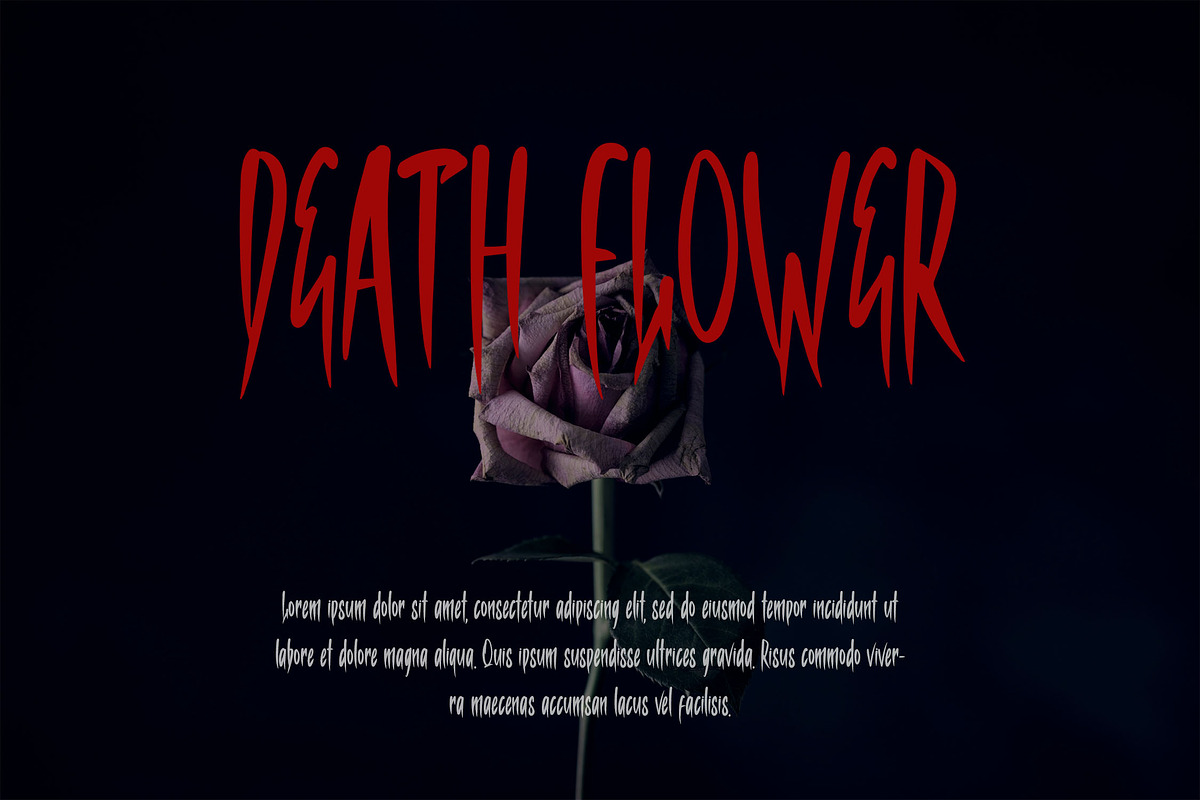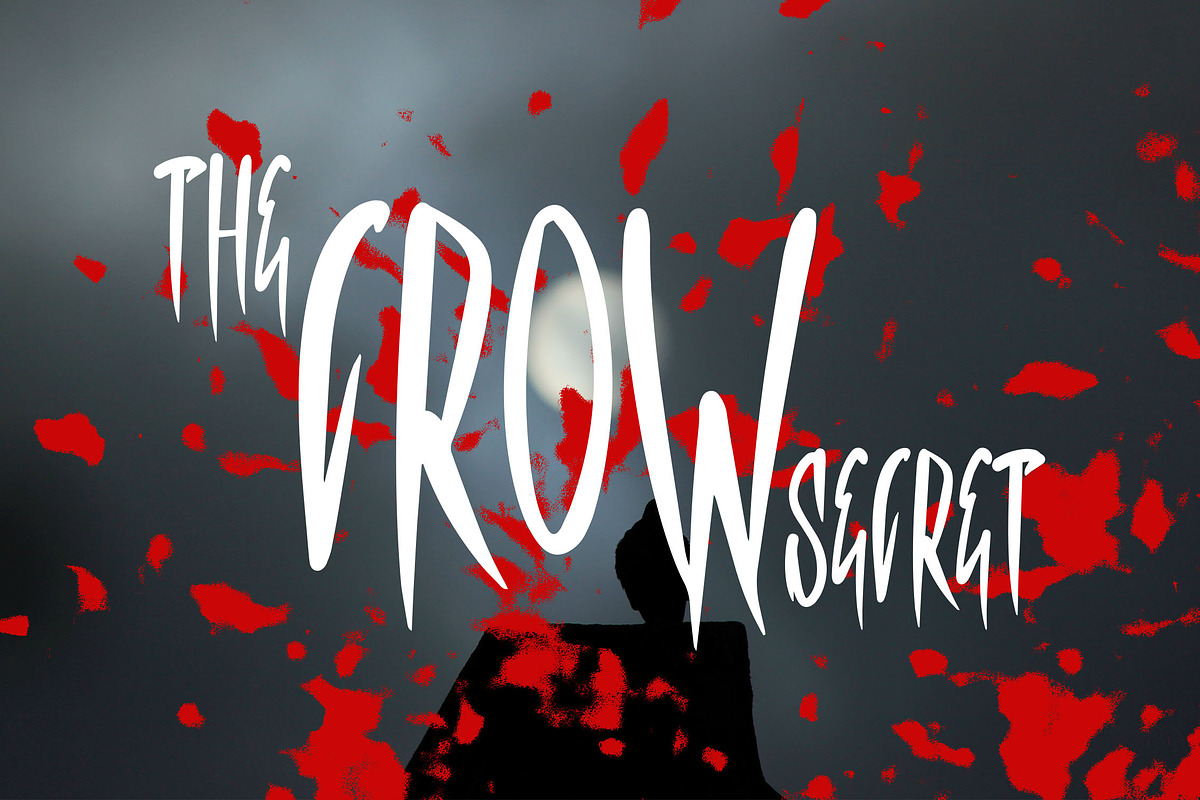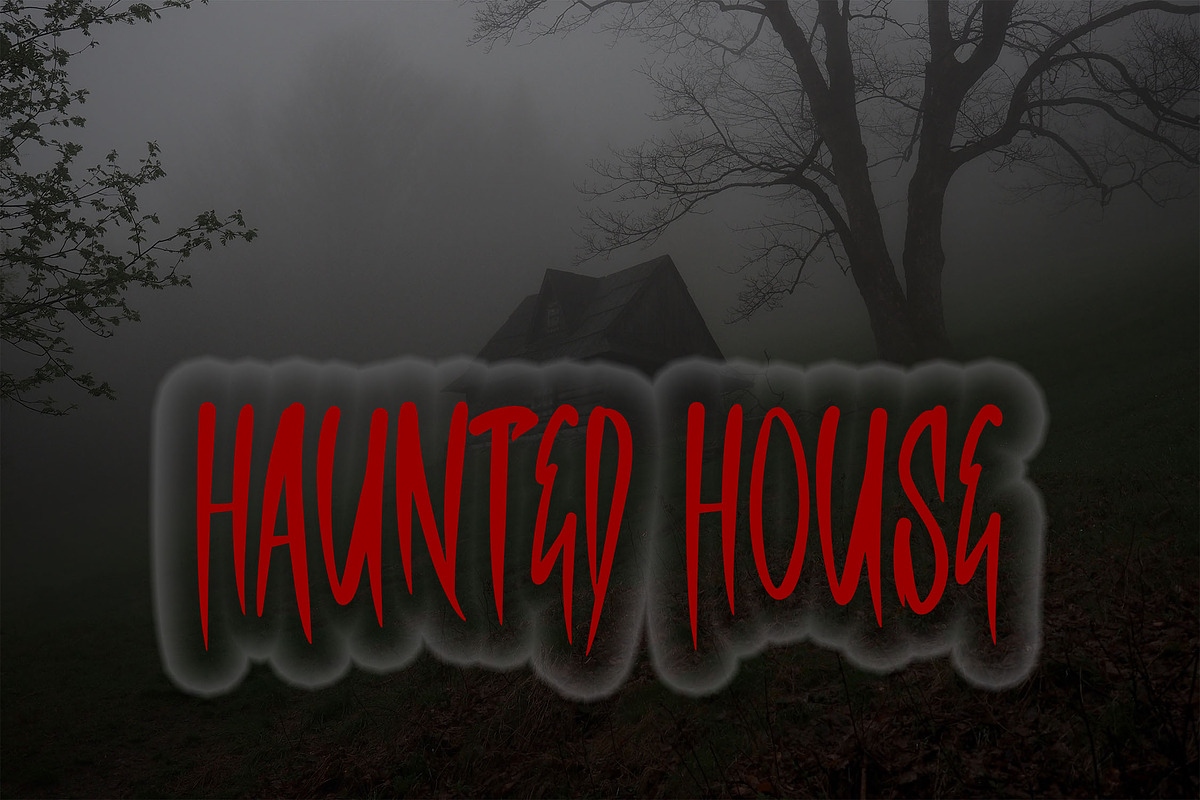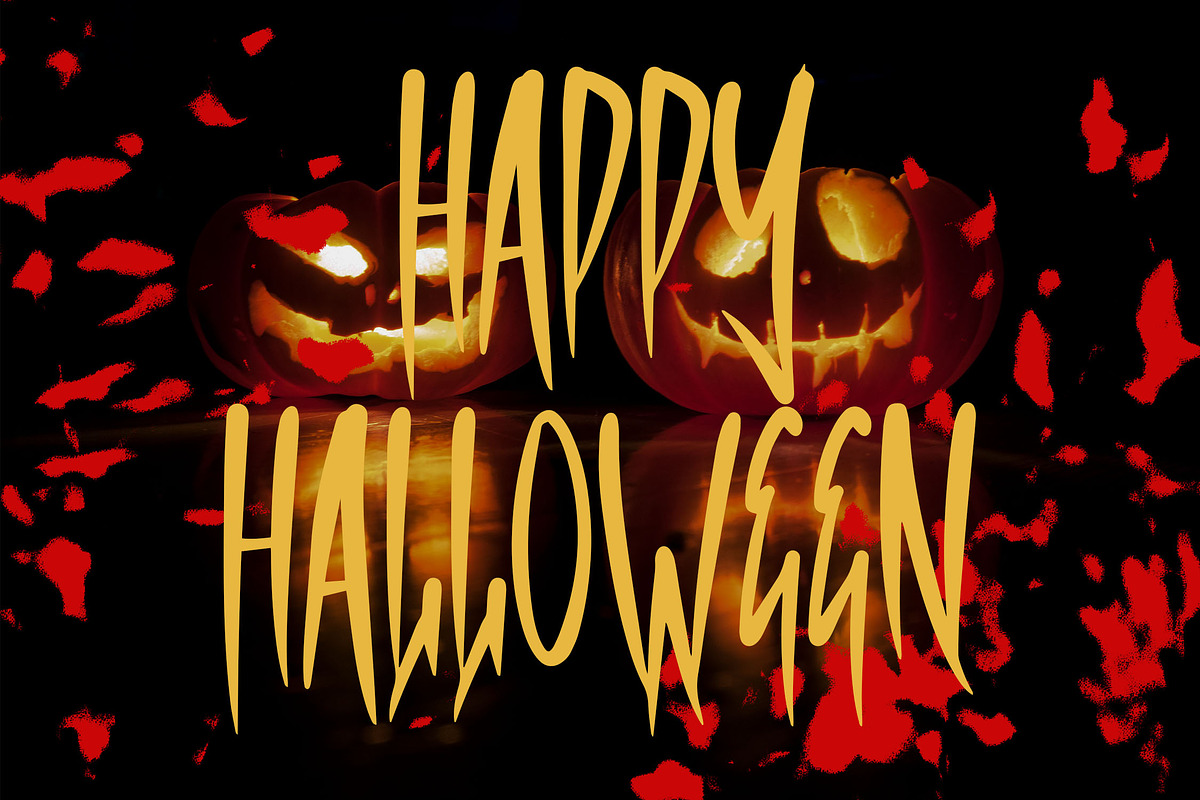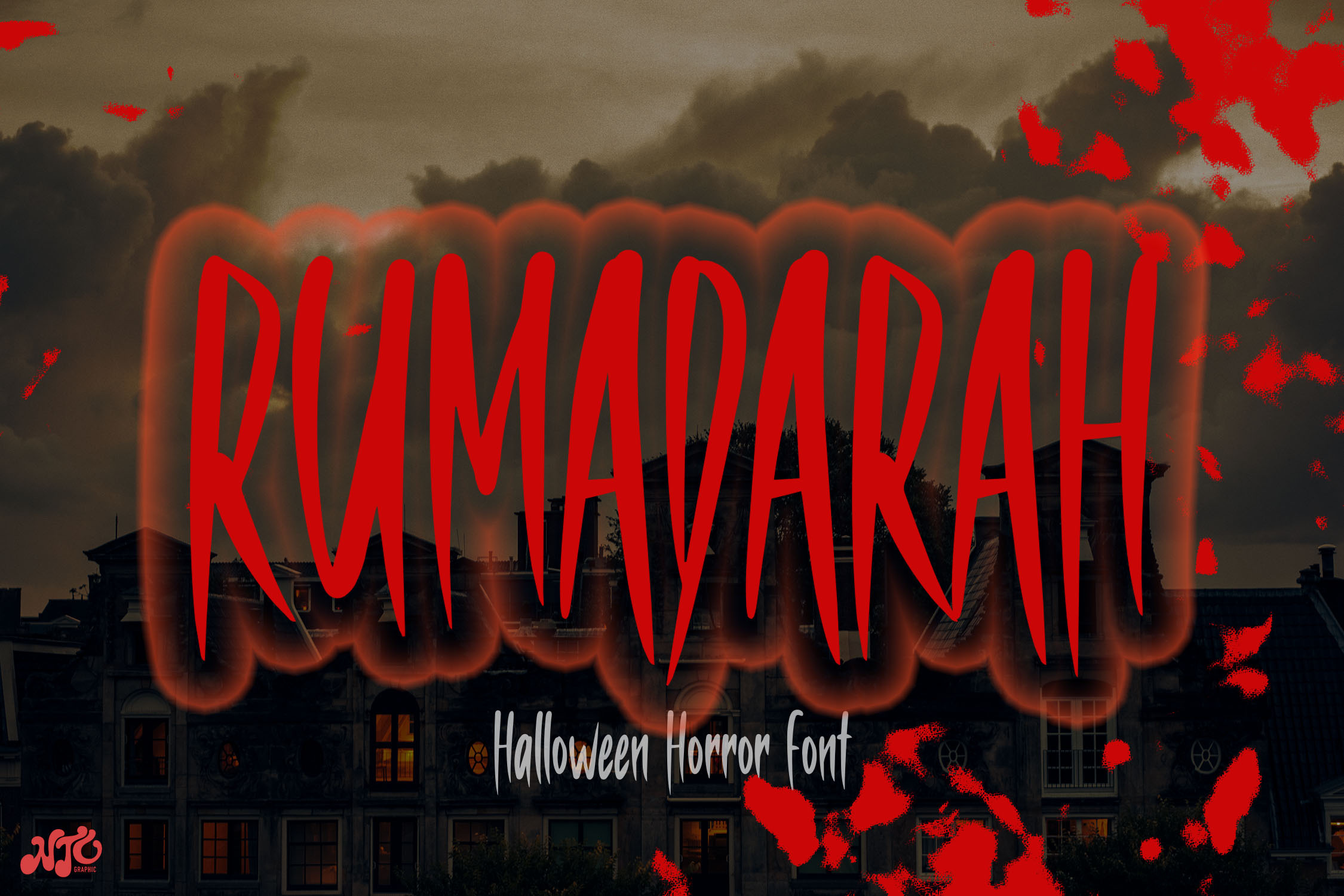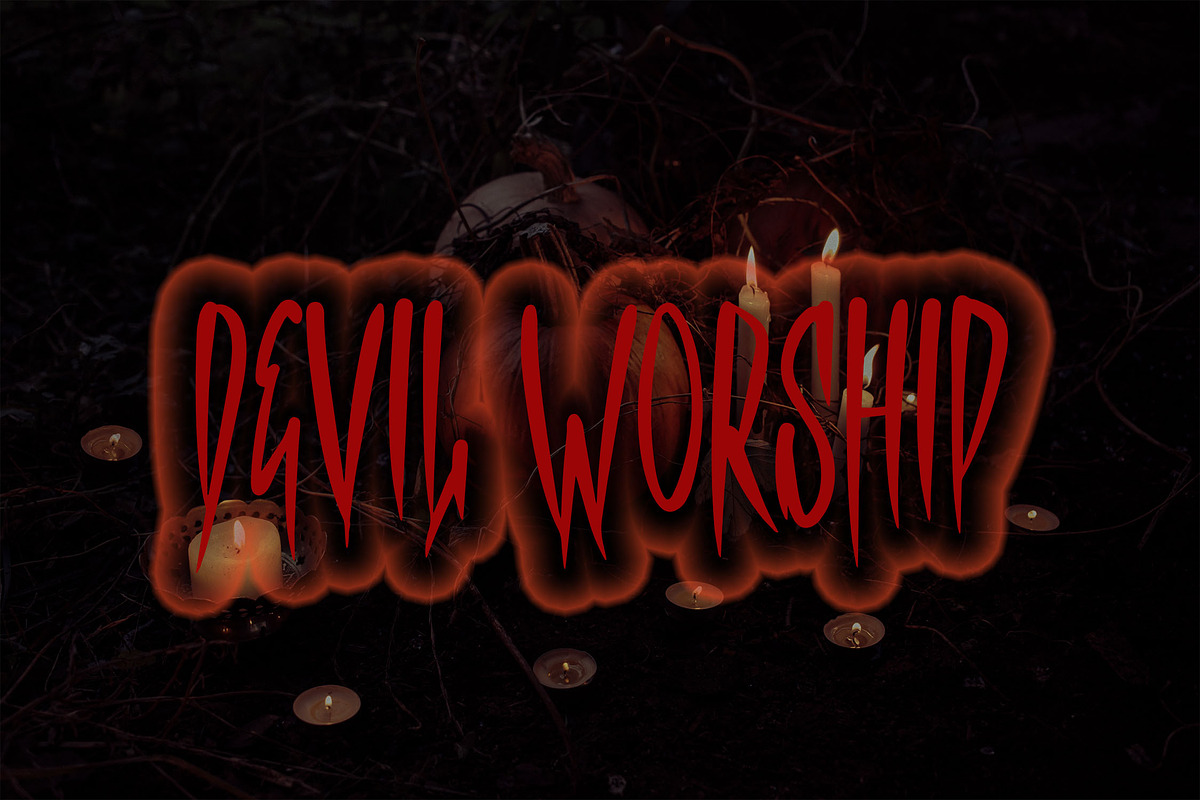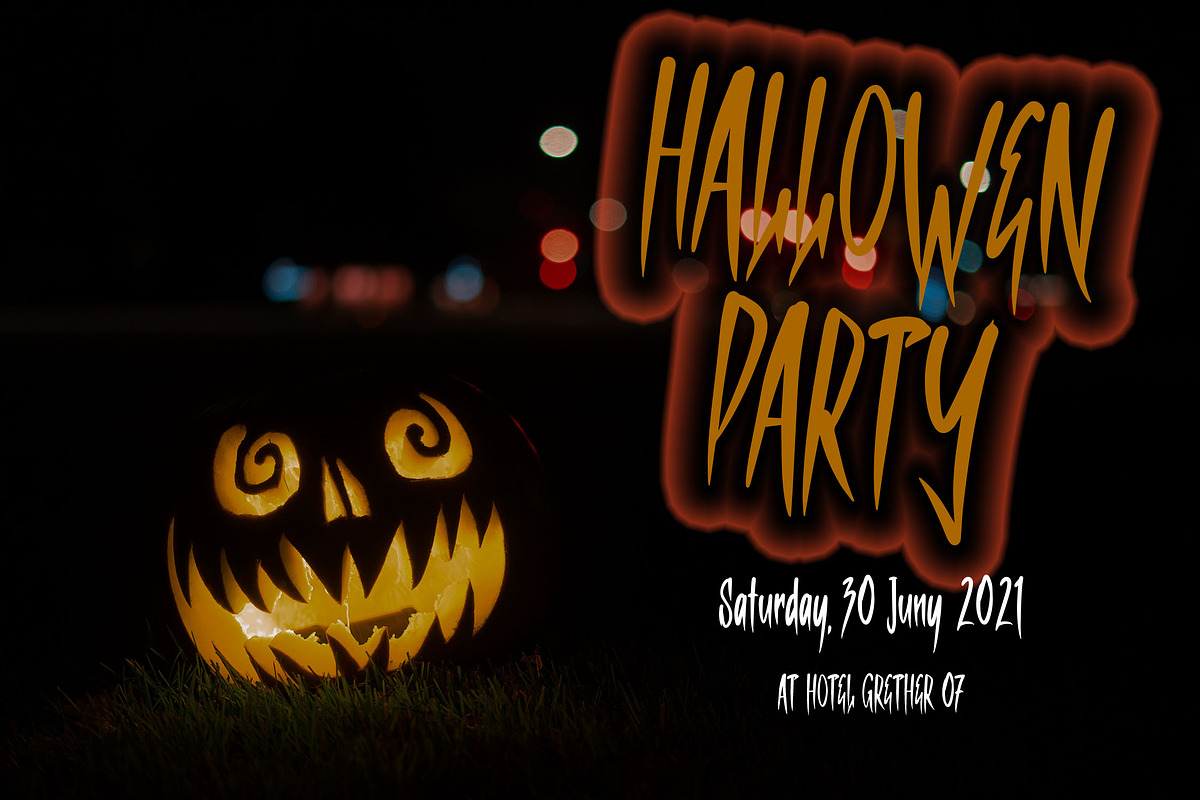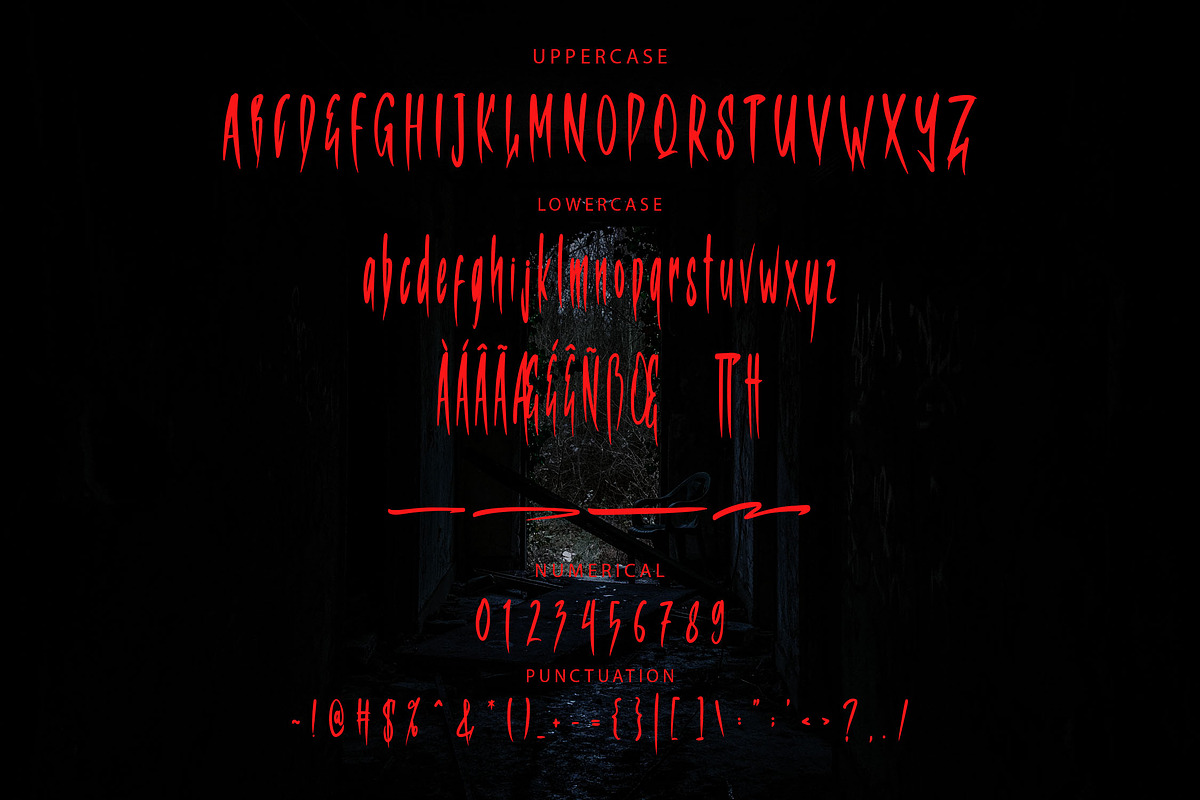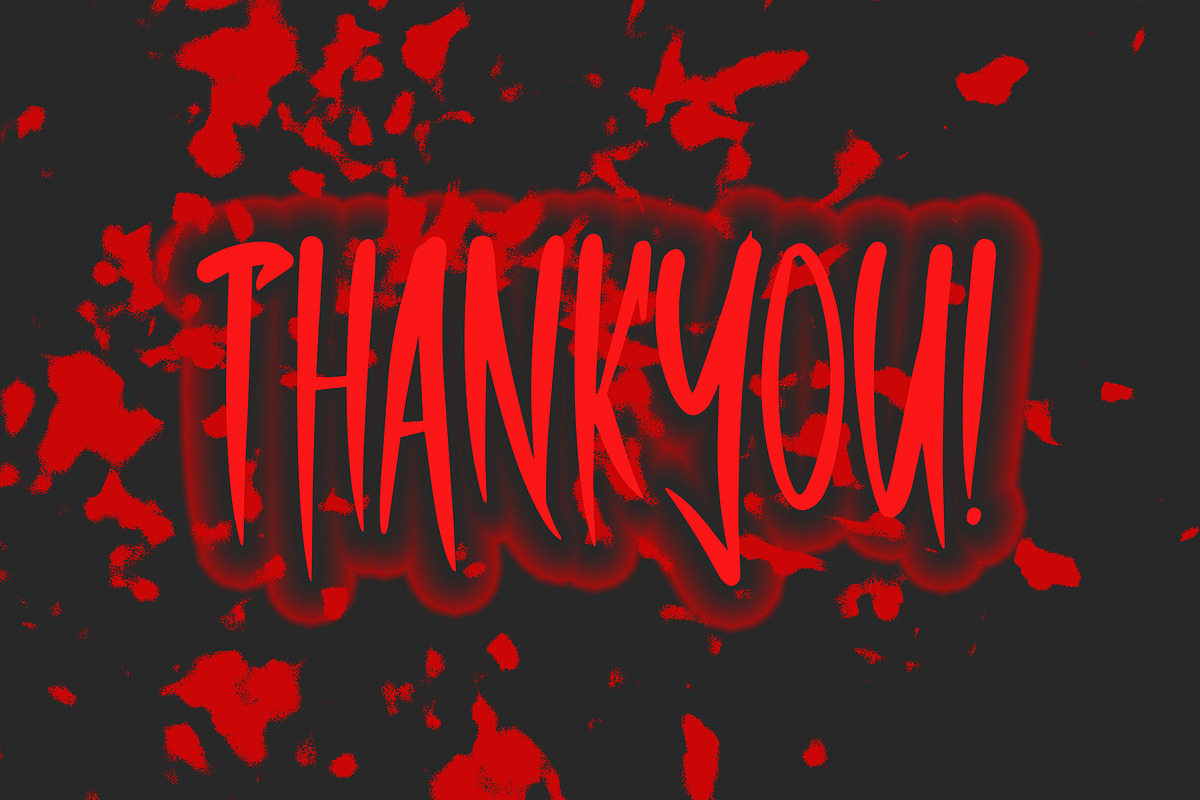
RUMADARAH - Halloween Horror Font
RUMADARAH is a horror Halloween themed font with a very unique shapes character. RUMADARAH font is perfect for Halloween card and Halloween banner designs. This font is suitable for making previews and covers, horror logo designs, shirt designs and other horror graphic needs.
- Stylistic Alternate